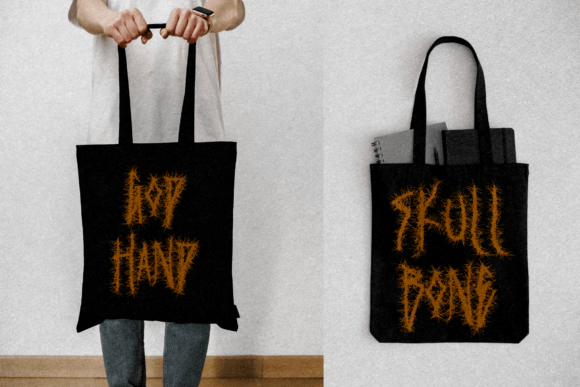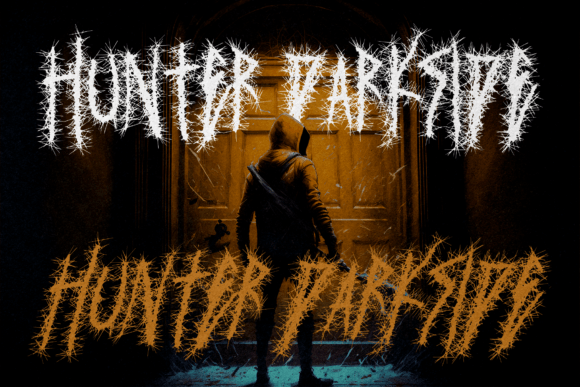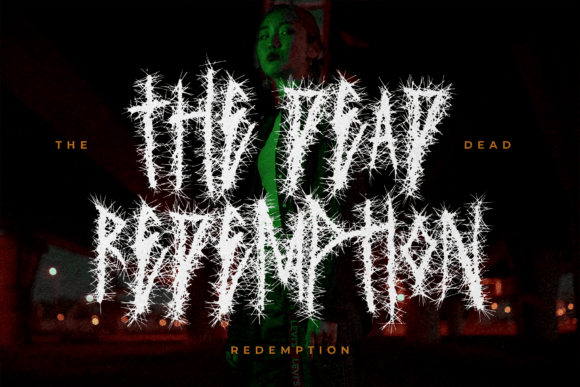
Introduction to Darkside Morbizey Font
Have you ever been working on a creative project, pouring your heart and soul into it, only to realize that the perfect font is missing? It’s that moment when everything comes together, but the typography just isn’t quite right. This is where the Darkside Morbizey Font comes in – a stunning metal display font that can elevate your designs to the next level.
With its unique, high-quality design, the Darkside Morbizey Font is perfect for a variety of projects, from logos and branding to homeware designs and product packaging. Its versatility makes it an invaluable resource for designers, allowing them to add a touch of elegance and sophistication to their work. Whether you’re working on a free download or a paid design project, this font is sure to impress.
Key Features of Darkside Morbizey Font
- Unique, high-contrast design ideal for creative projects and dark-themed backgrounds.
- High-quality font with clear, legible characters and precise details.
- Perfect for use in titles, headings, and other prominent design elements.
Honest Review: Darkside Morbizey Font
I recently had the opportunity to work with the Darkside Morbizey Font, and I must say it’s a unique addition to any creative project. The font is available for free download, making it an excellent design resource for designers on a budget.
What works well is the font’s versatility – it can be used for a wide range of applications, from titles to body text. The high quality of the font ensures that it looks great even when used in combination with transparent backgrounds.
- ✨ High-quality design that looks great in various applications
- ✨ Versatile font that can be used for titles and body text
However, there are some limitations to consider. The font’s unique design may not be suitable for all projects, and some users may find it difficult to read in certain contexts.
- ⚠️ Font may not be suitable for all projects due to its unique design
- ⚠️ May be difficult to read in certain contexts
Overall, I think the Darkside Morbizey Font is a great addition to any designer’s toolkit. While it may not be perfect for every project, it’s definitely worth considering for those looking for a high-quality, free design resource.
Introduction to Darkside Morbizey Font
The Darkside Morbizey Font is a high-quality design resource that offers a unique and edgy aesthetic perfect for creative projects. With its free download option, designers can easily incorporate this font into their work and take their designs to the next level.
The Darkside Morbizey Font is perfect for use in a variety of creative projects, including:
- Graphic design and branding
- Print design and marketing materials
- Typography-based art and design